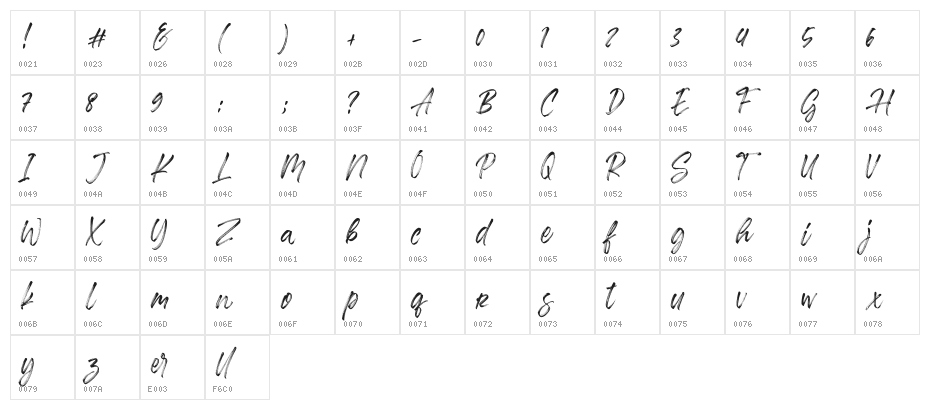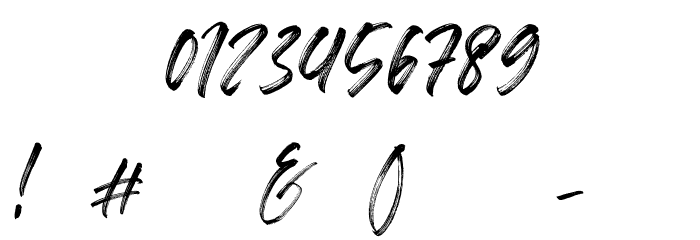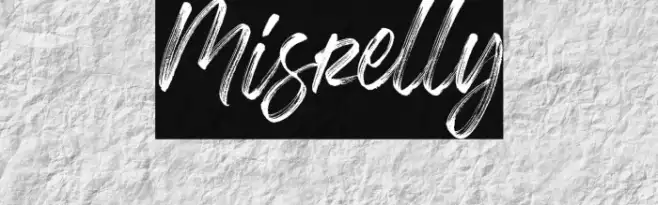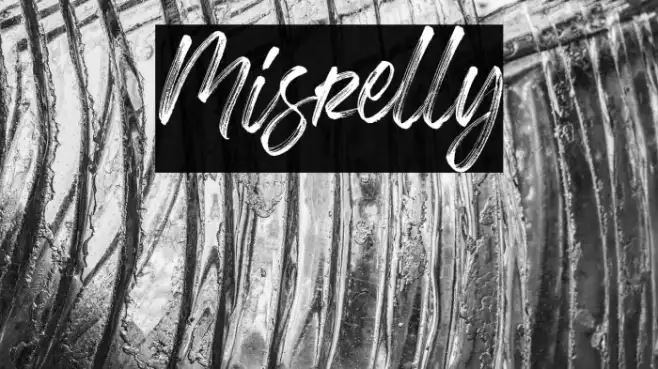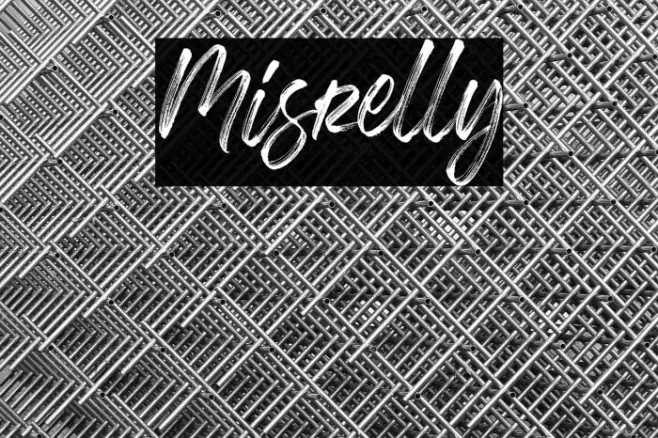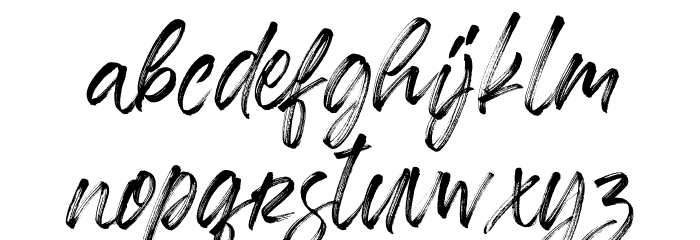
Misrelly Font
Misrelly Description
This font features a dynamic and expressive brush script style, characterized by its fluid strokes and energetic movement. The letters are crafted with a hand-drawn appearance, giving it an artistic and personal touch. The uppercase and lowercase letters maintain a consistent flow, while the numbers and special characters complement the overall aesthetic. The strokes vary in thickness, adding a sense of depth and texture, which enhances its visual appeal. This font is ideal for projects that require a lively and creative flair, making it suitable for artistic designs, branding, and expressive typography.
| Use Case | Logos, Headlines, Artistic designs |
| Proposed Projects | Ideal for branding, artistic designs, invitations, and expressive typography. |